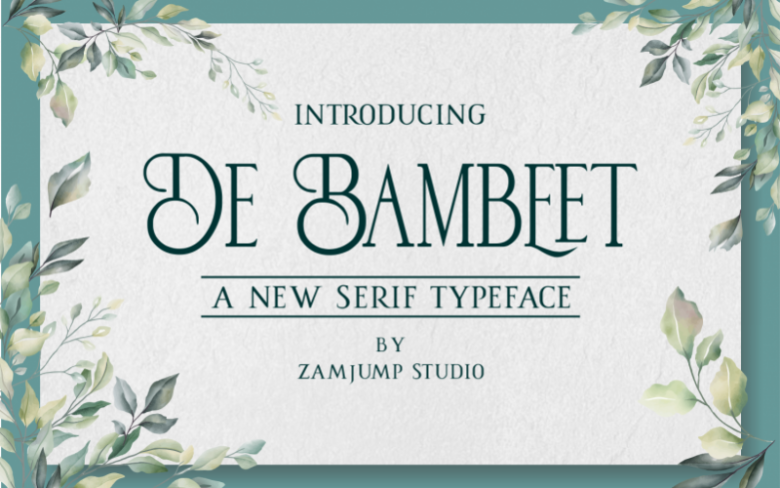
De Bambeet is a serif font that has a little style compared to other serifs, with multiple languages, alternate and also ligature is quite cool and suitable to be paired in various media like a posters, wedding invitations, craft products, book covers, photography, t-shirts , product packaging and other media. By using De Bambeet, I am sure that your products will look elegant, classic and luxurious.